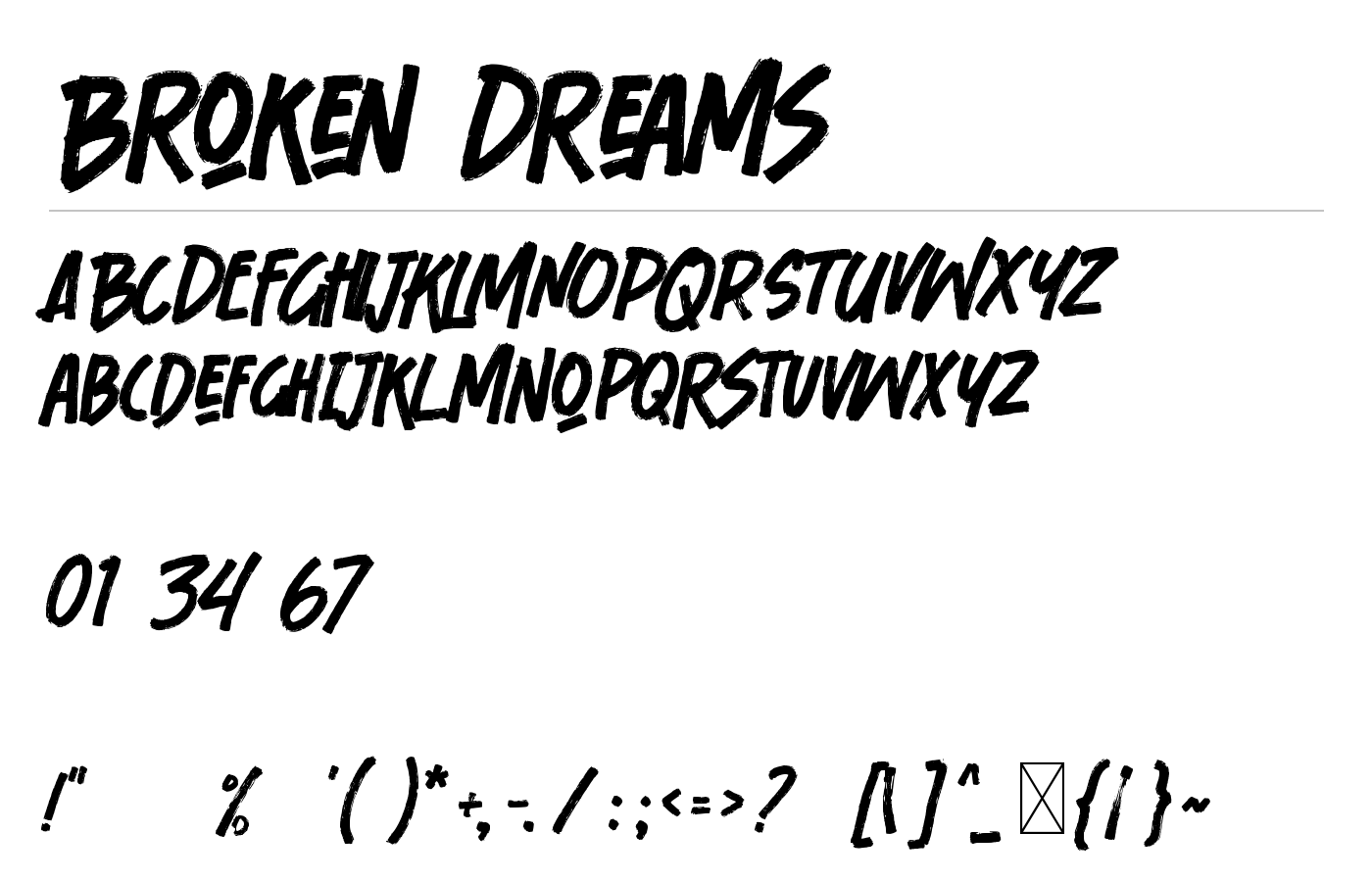
Broken Dreams is a bold, hand-drawn brush script font that exudes energy and raw emotion with its rough, textured strokes and informal style. Its tall, slightly condensed letterforms and dynamic appearance make it perfect for edgy, creative projects like posters, logos, or branding that want to convey a sense of rebellion or artistic flair. This font works best in headlines or display use where its strong personality can stand out and capture attention.
Broken Dreams Font
About Broken Dreams Font
| Font family | Broken Dreams Font |
| Designer | Anang F & Malik Wsn | Gassstype© Studio 2021 |